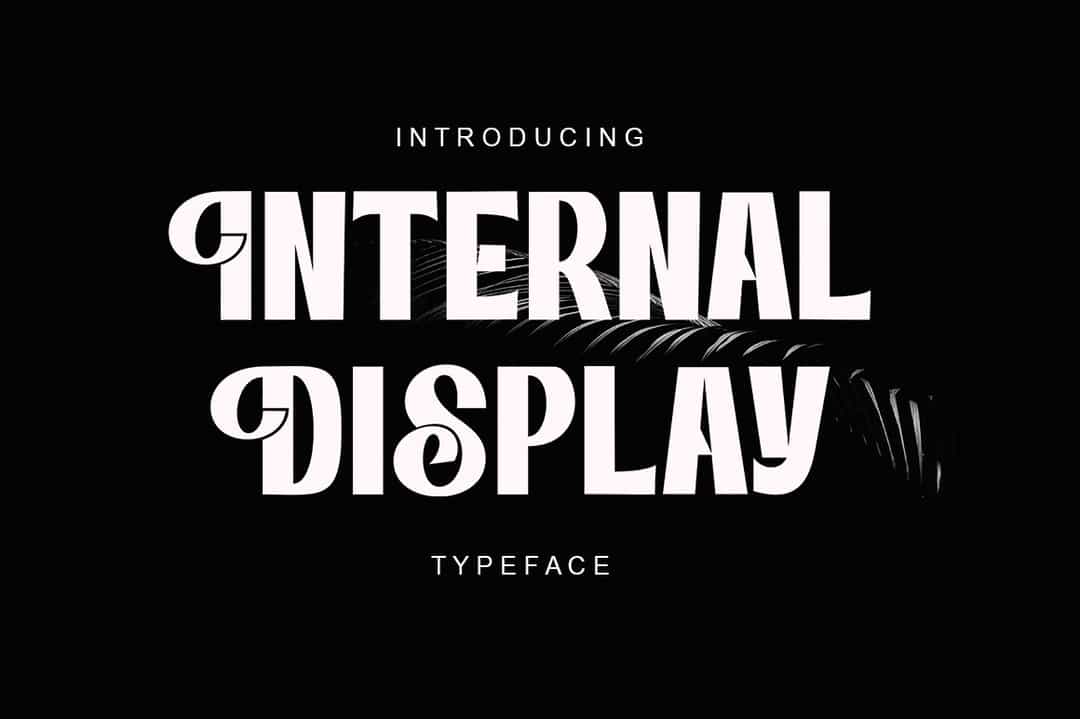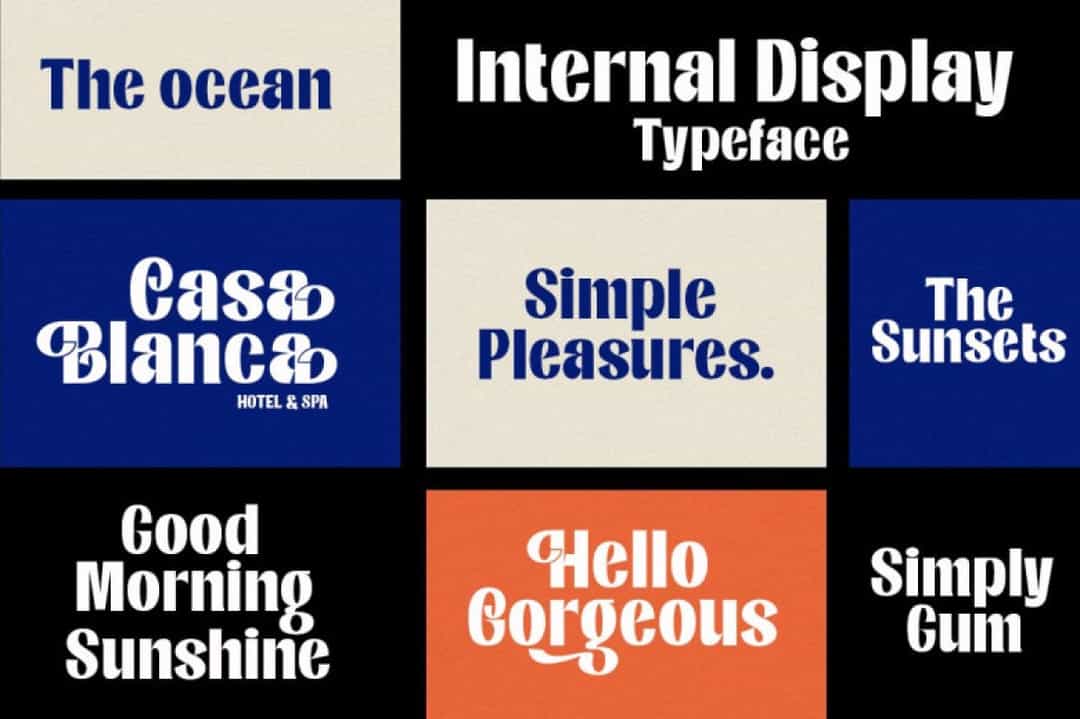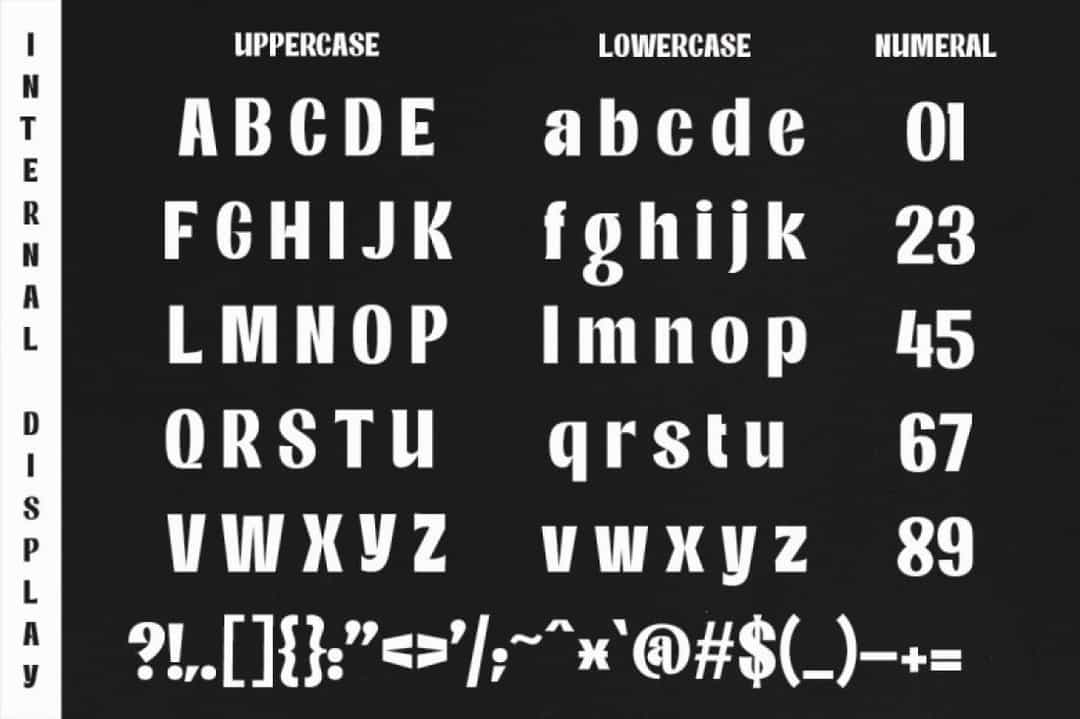
Internal Display is a classic style font that embodies cleanliness, smooth elegance, original modern femininity, sensuality and readability. Perfect for menus, invitations and labels as well as logos in formal formats like menus, invitations and labels; romantic novels letterpress magazines books wedding greeting cards packaging labels etc.